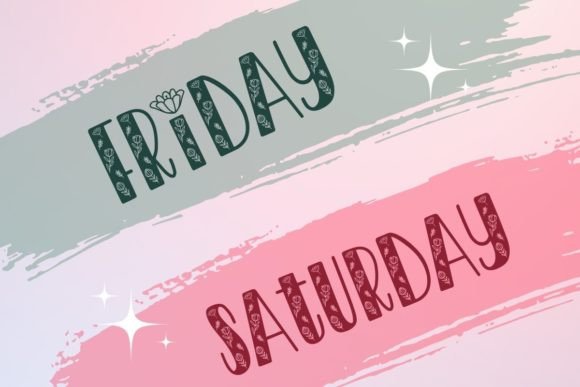
Blooming Font
Blooming is a cute decorative font decorated with blooming flowers. The quirky design adds a fun touch to any project. Perfect for creating various new designs to match products such as banners, content, mugs, cards, shirts, stationery, social media posts, and more!